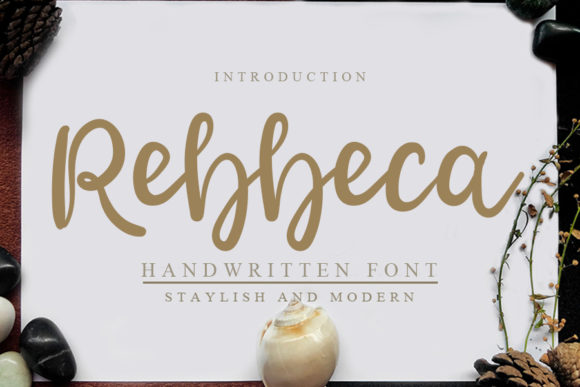
Welcome to the captivating world of Rebbeca Font, where elegance and style intertwine to create typography that will captivate your audience. Let this flowing handwritten font, crafted with the utmost care by K_IN Studio, become your go-to choice for House Numbers and other projects that demand a touch of sophistication.
Step into a realm of limitless creativity as you explore the endless possibilities of Rebbeca Font. Its timeless appeal and distinct character will elevate your designs to new heights. Imagine your House Numbers adorned with the graceful strokes of Rebbeca, guiding visitors to your doorstep with an air of understated luxury.
But Rebbeca's charm extends far beyond its practical applications. Its understated elegance makes it the perfect choice for invitations, greeting cards, logos, and any project where you seek to leave a lasting impression. Its ability to convey both warmth and professionalism will add a touch of sophistication to all your creations.
Indulge in the sheer beauty of Rebbeca Font, where each letter flows effortlessly into the next, creating a visual masterpiece. Its graceful curves and delicate details will captivate your audience, drawing them into your designs. Experience the joy of creating designs that are as unique and unforgettable as the stories they tell.
Unlock the potential of Rebbeca Font today and embark on a creative journey that will transform your designs. Let its elegant touch inspire you to create something truly extraordinary.